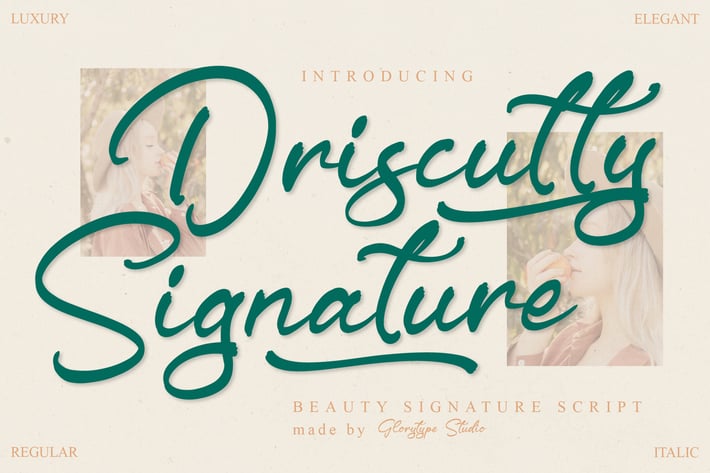
Driscutty Signature Script Font
Driscutty Signature is an elegant handwritten script font designed to bring a luxurious and personal touch to your creative work. With its smooth curves, refined strokes, and natural signature flow, this font adds sophistication to branding, social media content, greeting cards, and high-end visual projects. Whether for digital use or print, Driscutty Signature delivers timeless beauty with a modern twist.
Luxurious handwritten signature style
Smooth flowing strokes with natural rhythm
Great readability while maintaining elegance
Perfect for classy, modern, and feminine branding
Branding & luxury logos
Social media posts
Wedding & invitation designs
Fashion and beauty content
Personal signatures & stationery
Elegant packaging
Signature elegance crafted to elevate every design.